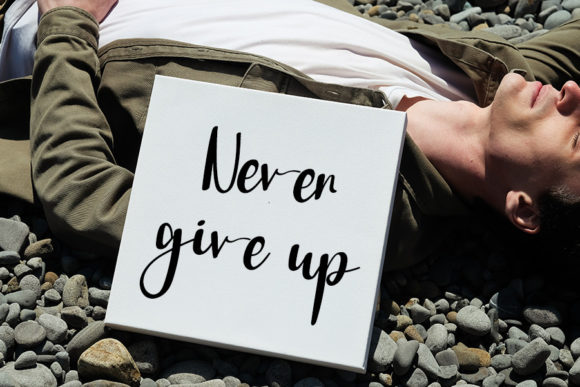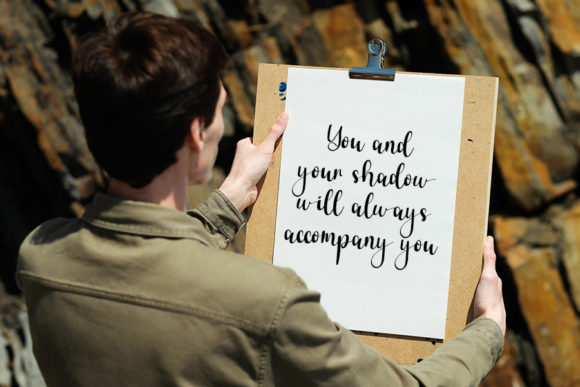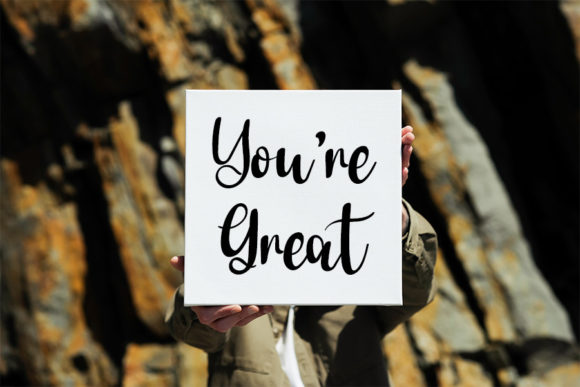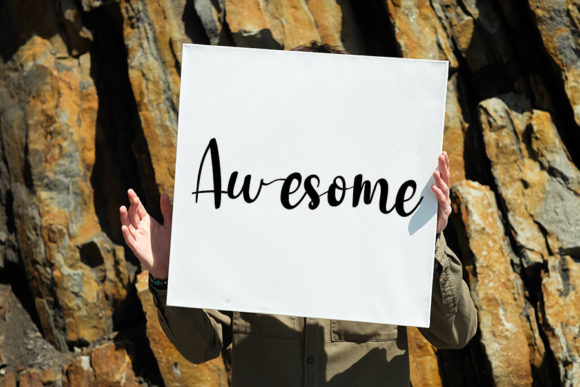
Shamrock Font
“Shamrock” embodies contemporary elegance with its trendy handwritten style, evoking a sense of sophistication and impeccable form reminiscent of timeless classic calligraphy. This versatile font serves as a dynamic addition to any design project, infusing it with an aura of refinement and class.
With its sleek lines and graceful curves, “Shamrock” offers a modern interpretation of traditional calligraphy, making it a perfect fit for a wide range of design applications. Whether you’re crafting branding materials, advertising campaigns, invitations, or product packaging, this font effortlessly enhances the visual appeal of your creations, elevating them to new heights of elegance.
The adaptability of “Shamrock” extends to its ability to suit various design needs and themes. Whether you’re aiming for a minimalist aesthetic or a more ornate design, this font provides the versatility to complement your vision, ensuring each project is meticulously tailored to perfection.
Moreover, “Shamrock” is designed with practicality in mind, ensuring ease of use across different mediums and formats. Whether you’re writing product descriptions, designing labels, or creating promotional materials, this font maintains clarity and legibility, effectively conveying your message to your audience.
In addition to its suitability for design projects, “Shamrock” serves as a powerful branding tool, helping to establish a distinctive identity for your brand or business. Its elegant and contemporary style adds a touch of luxury and sophistication to your brand’s visual identity, making it memorable and recognizable to your target audience.
In conclusion, “Shamrock” is more than just a font—it’s a versatile asset that empowers designers to infuse their projects with elegance and class. Inspired by timeless classic calligraphy, this font exudes a contemporary atmosphere that breathes new life into any design endeavor. Whether you’re crafting invitations, advertisements, or product packaging, “Shamrock” is sure to leave a lasting impression, making your projects truly stand out from the crowd.